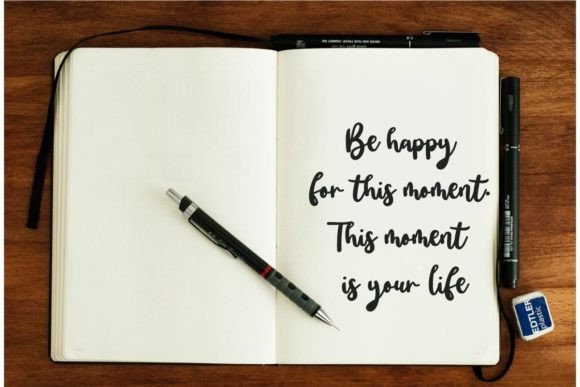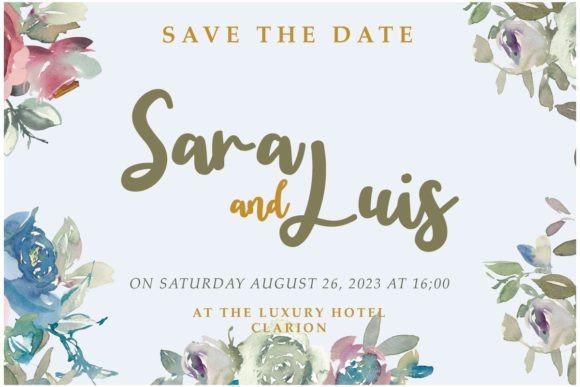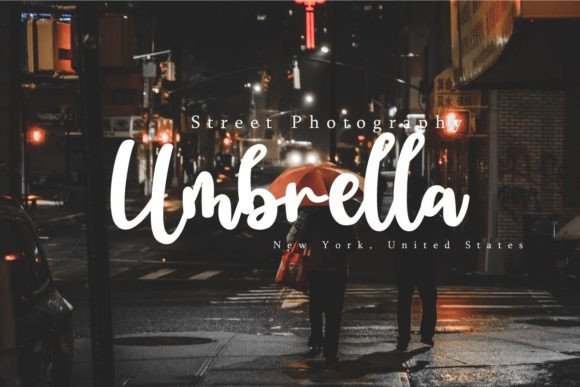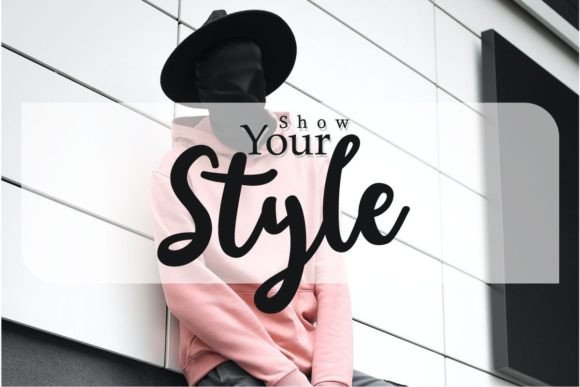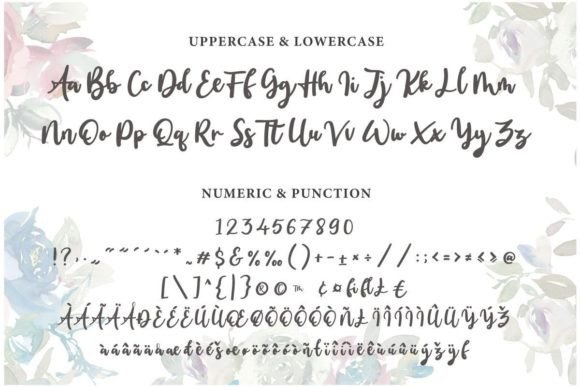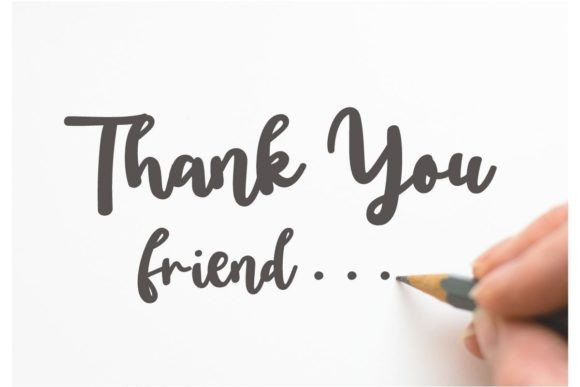
Introducing Concelta Font: Elevate Your Designs with Elegant Handwritten Typography
In the world of design, typography plays a crucial role in conveying messages, evoking emotions, and creating lasting impressions. For designers, crafters, and DIY enthusiasts, finding the perfect font can be a daunting task. However, if you’re looking for a beautiful handwritten font that can elevate your designs, look no further than Concelta Font. In this article, we’ll explore the features, uses, and benefits of Concelta Font, and why it’s a must-have for any creative project.
What is Concelta Font?
Concelta Font is a stunning handwritten font that exudes elegance, sophistication, and charm. Its unique, flowing script is perfect for creating visually appealing designs that capture attention and leave a lasting impression. Whether you’re working on a personal project or a client’s, Concelta Font is sure to impress.
Features of Concelta Font
So, what makes Concelta Font so special? Here are some of its key features:
- Beautiful Handwritten Script: Concelta Font boasts a gorgeous, handwritten script that’s perfect for creating elegant and sophisticated designs.
- Versatile: This font is incredibly versatile and can be used for a wide range of projects, from wall displays and wedding invitations to social media posts and product packaging.
- Easy to Read: Despite its ornate script, Concelta Font is surprisingly easy to read, making it perfect for body text and captions.
- Scalable: Concelta Font is highly scalable, ensuring that it looks great at any size, from small captions to large headlines.
Uses of Concelta Font
Concelta Font is an incredibly versatile font that can be used for a wide range of projects, including:
- Wall Displays: Create stunning wall displays, posters, and prints with Concelta Font.
- Wedding Invitations: Add a touch of elegance to your wedding invitations, save-the-dates, and thank-you cards.
- Social Media Posts: Elevate your social media posts, stories, and reels with Concelta Font.
- Logos and Branding: Use Concelta Font to create unique logos, business cards, and brand identity materials.
- Advertisements: Create eye-catching advertisements, flyers, and brochures with Concelta Font.
- Product Packaging: Add a touch of sophistication to your product packaging, labels, and tags.
- Product Designs: Use Concelta Font to create stunning product designs, including jewelry, home decor, and crafts.
- Labels and Tags: Create beautiful labels and tags for your products, gifts, or DIY projects.
- Photography: Add a touch of elegance to your photography with Concelta Font watermarks and overlays.
- Invitations and Stationery: Create beautiful invitations, stationery, and greeting cards with Concelta Font.
Benefits of Using Concelta Font
So, why should you choose Concelta Font for your next project? Here are some benefits of using this stunning font:
- Unique and Eye-Catching: Concelta Font is a unique and eye-catching font that will set your designs apart from the crowd.
- Elegant and Sophisticated: This font exudes elegance and sophistication, making it perfect for high-end designs and luxury brands.
- Easy to Use: Concelta Font is surprisingly easy to use, even for those with limited design experience.
- Time-Saving: With Concelta Font, you can create stunning designs in no time, saving you time and effort.
In conclusion, Concelta Font is a beautiful handwritten font that’s perfect for designers, crafters, and DIY enthusiasts. Its unique, flowing script and elegant charm make it an excellent choice for a wide range of projects, from wall displays and wedding invitations to social media posts and product packaging. With its versatility, ease of use, and stunning design, Concelta Font is a must-have for any creative project. So why wait? Get Concelta Font today and elevate your designs to the next level!